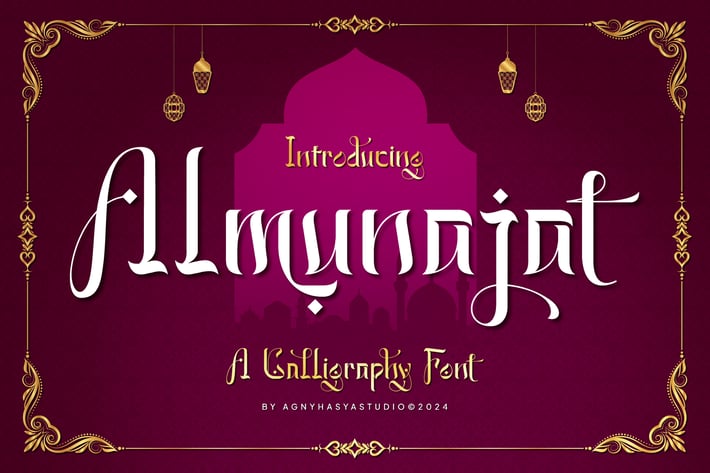
Almunajat - Arabic Style Font
Introducing Almunajat Is an Arabic-Style Display Typeface With Calligraphic and Blackletter Nuances That Is Perfect for Islamic Event Design Projects, Especially During Ramadan.\
This Typeface Comes With Unique Alternates and Ligatures, Allowing You to Experiment With Character Styles, Resulting in Visually Interesting and Cool Typography.\
It Also Supports Multilingual Characters, Making It Perfect for Use in Various Languages.
It's Perfect for Your Design Projects Such as Logos, Advertising, Branding, Posters, Banners, Product Designs, Art Quotes, Special Events, Product Packaging, and More.